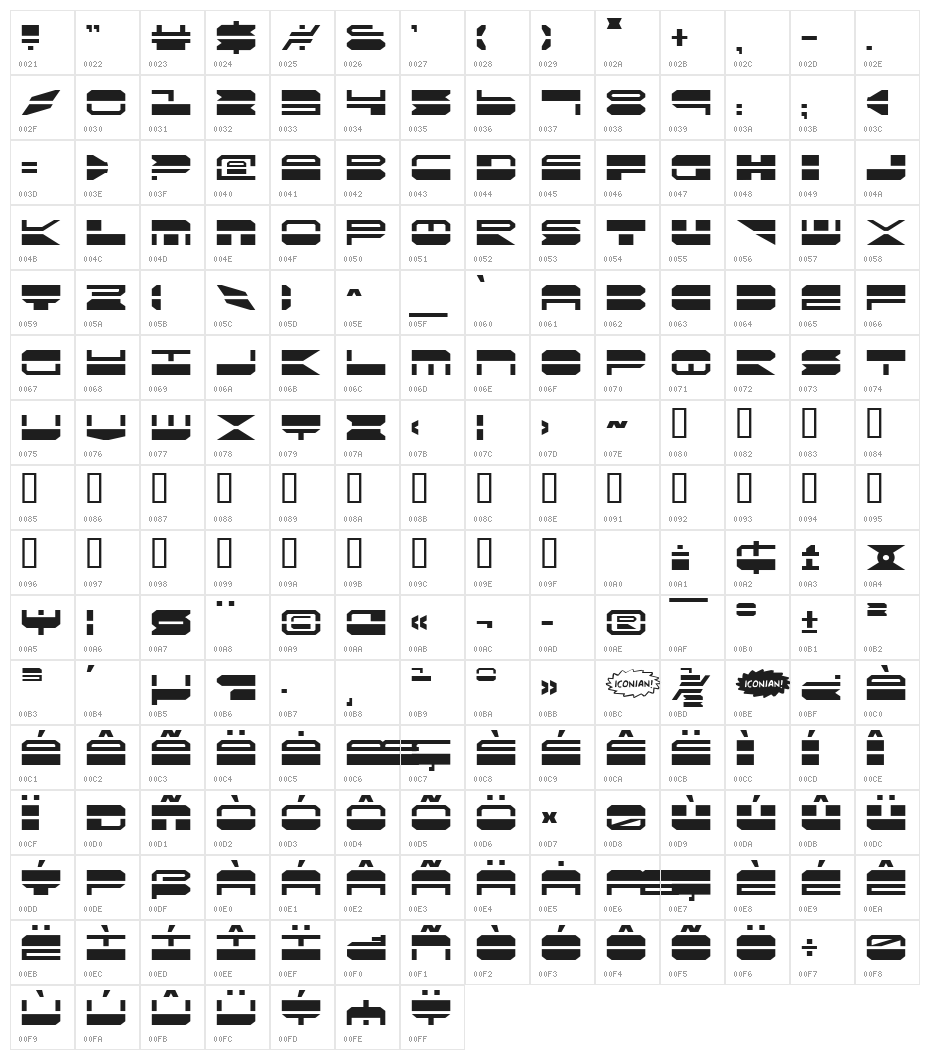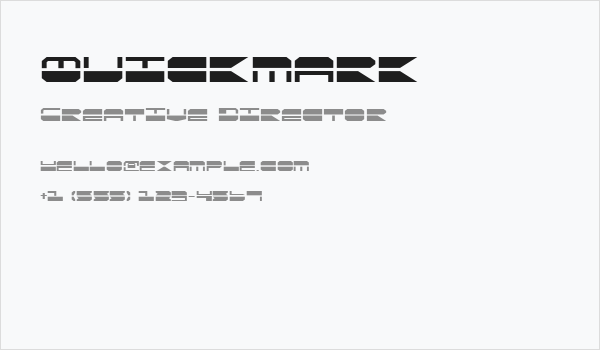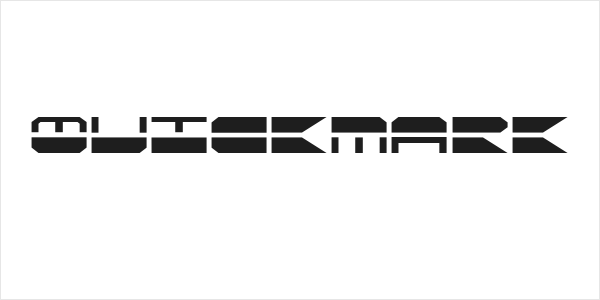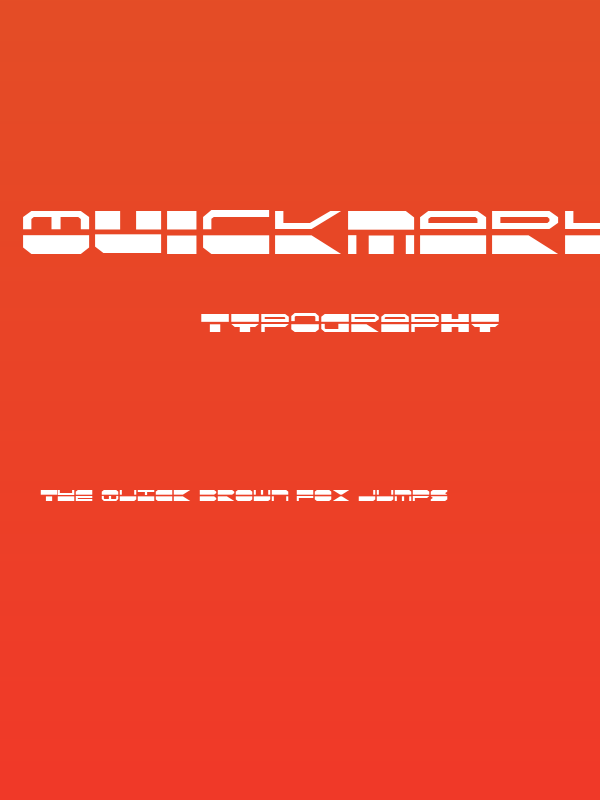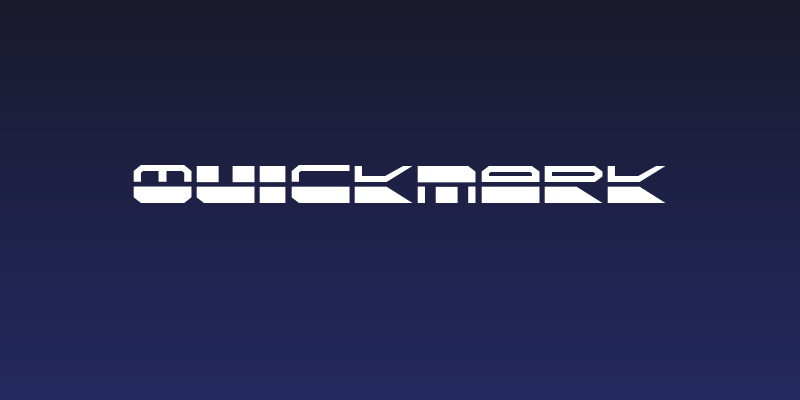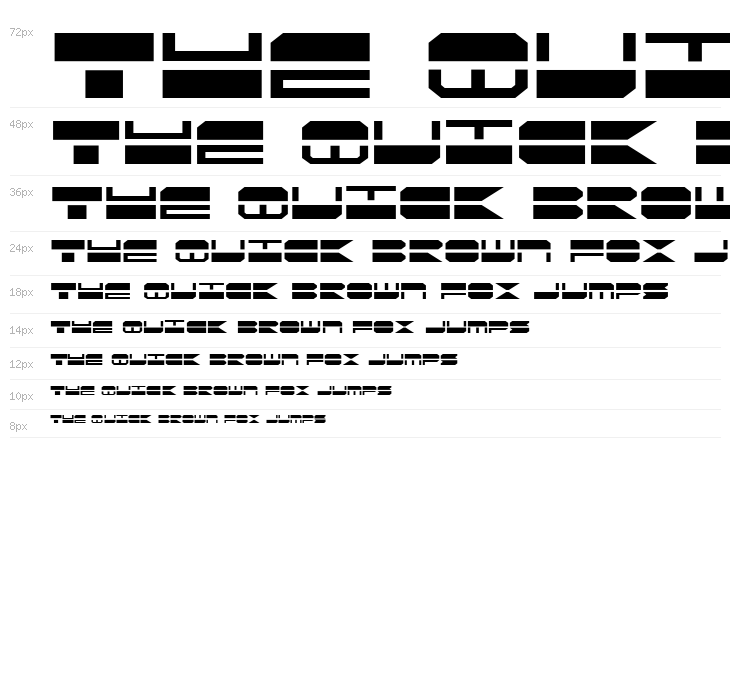
Quickmark Font
Quickmark Description
This font features a bold, futuristic design with geometric shapes and sharp angles. Each character is constructed with a series of horizontal and vertical lines, creating a digital, tech-inspired appearance. The uppercase and lowercase letters maintain a consistent style, with a unique, blocky structure that emphasizes modernity and innovation. Numbers and special characters follow the same design principles, ensuring uniformity across all elements. The font's distinct style makes it ideal for projects that require a contemporary and cutting-edge look.
| Proposed Projects | Ideal for technology branding, sci-fi movie posters, video game titles, and modern digital interfaces. |